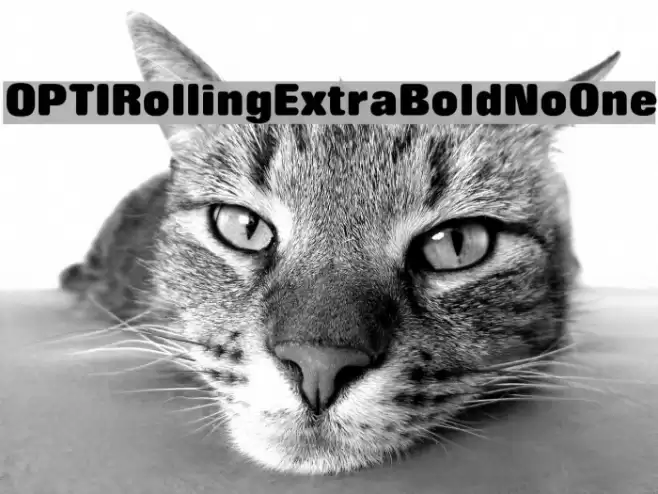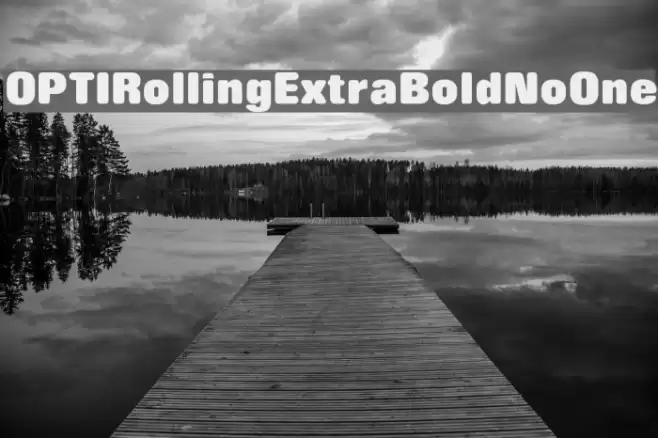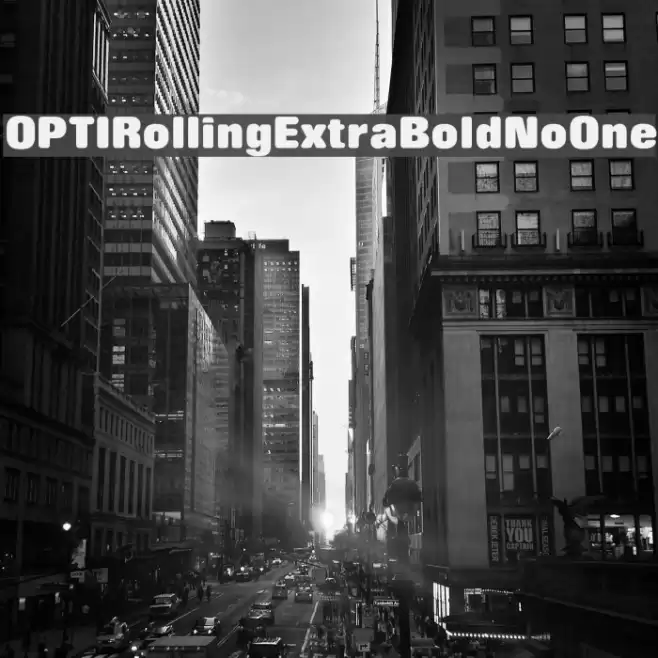
OPTIRollingExtraBoldNoOne Font
OPTIRollingExtraBoldNoOne Description
This font features a bold and robust design with thick, rounded strokes that give it a strong and impactful presence. The characters are uniformly wide, creating a sense of stability and confidence. The uppercase and lowercase letters maintain a consistent style, with rounded edges that soften the overall appearance. The numerals and special characters are equally bold, ensuring they stand out in any design. This font is ideal for making a statement, with its heavy weight and solid form making it perfect for attention-grabbing headlines or logos.
A bold, rounded font with thick strokes and a strong presence from Uncategorized fonts.
- Proposed Projects: Ideal for branding, advertising, posters, and any design requiring a bold statement.